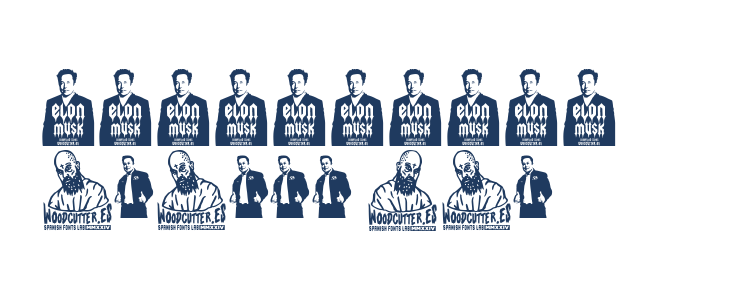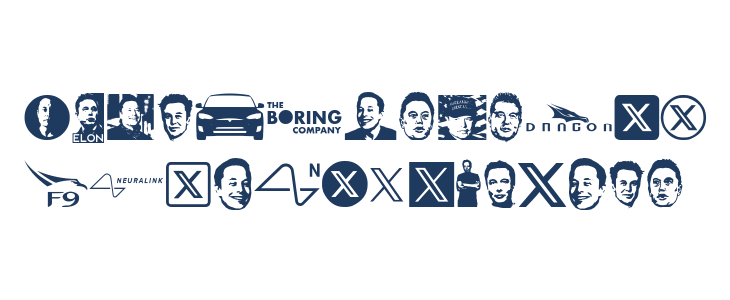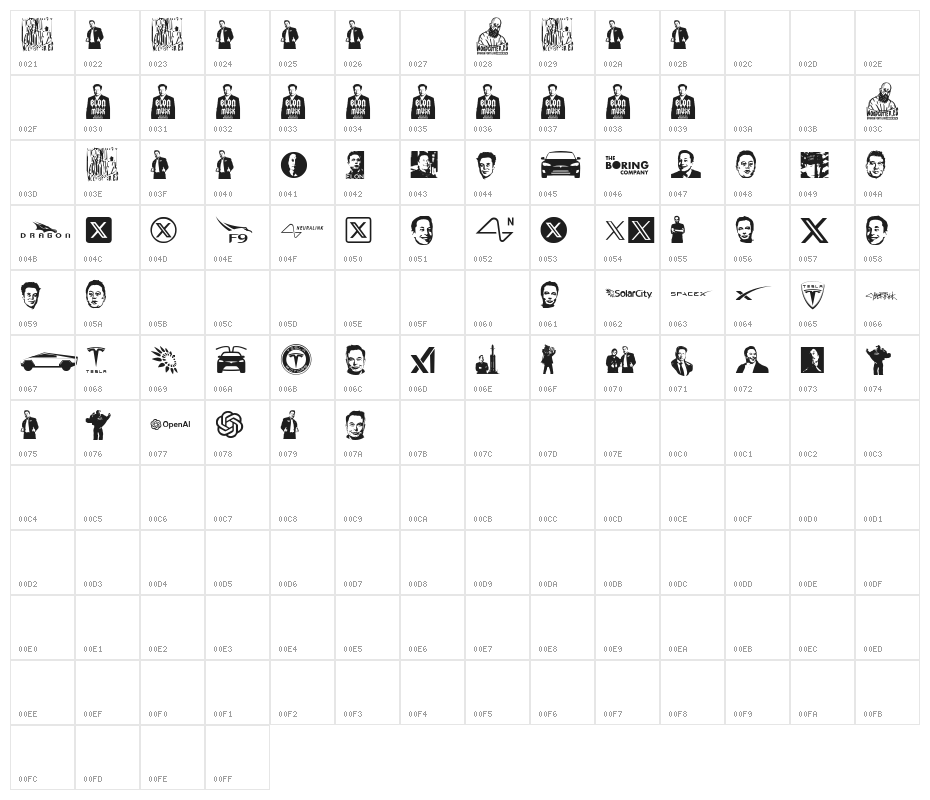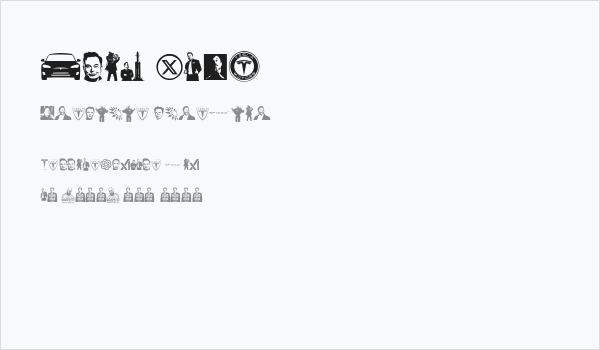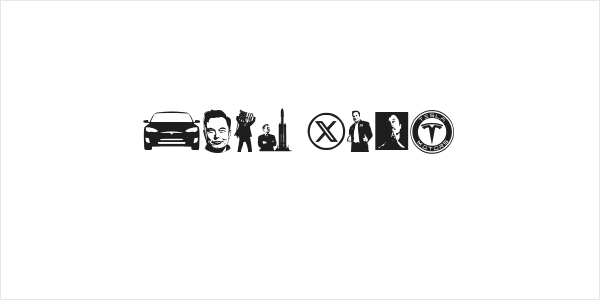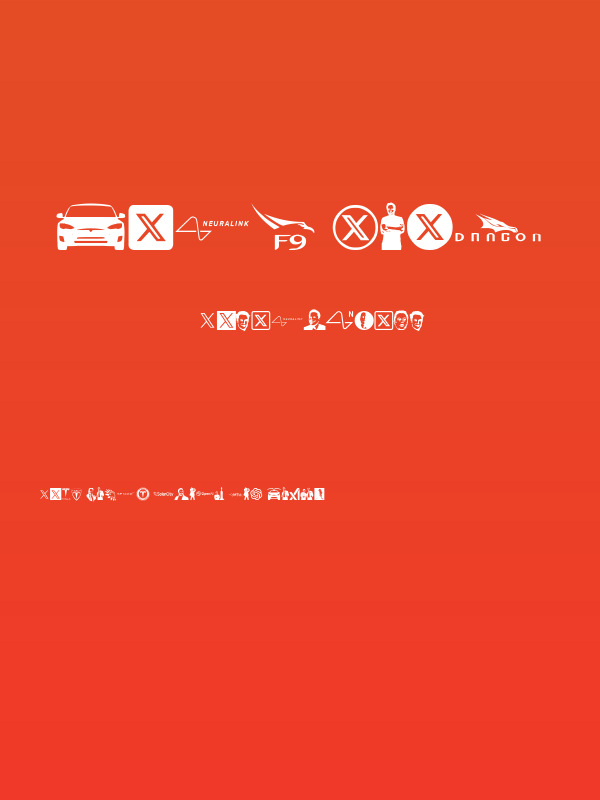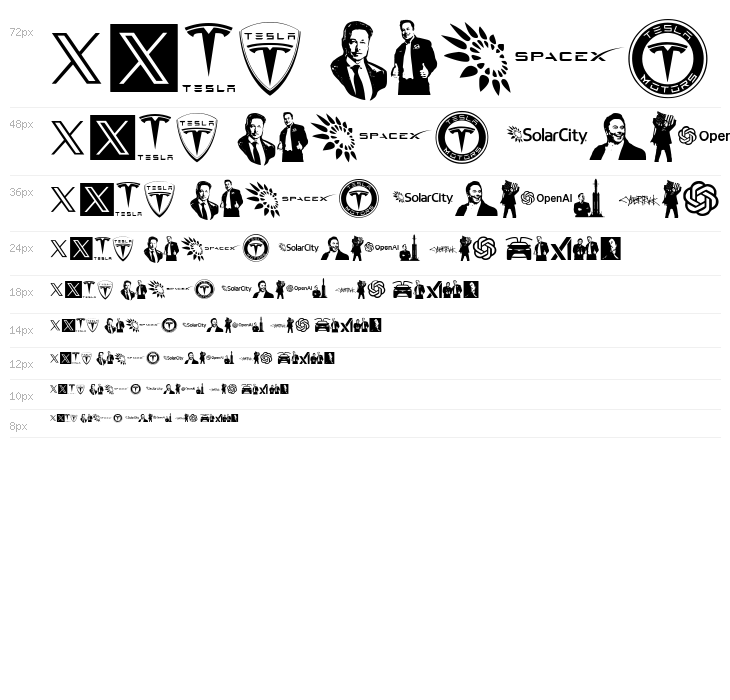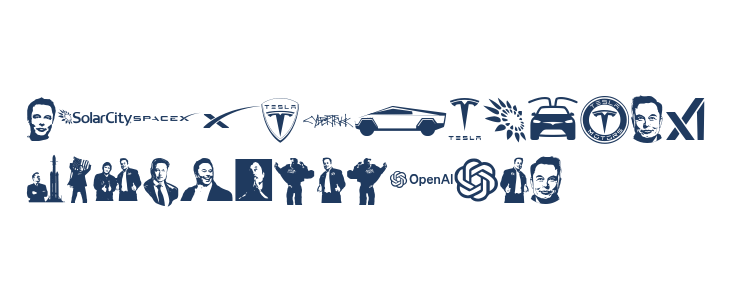
Elon Musk Font
Elon Musk Description
A decorative display typeface featuring a mix of illustrated portraits, logos, and stylized text elements referencing various technology and automotive themes. The glyphs are highly graphic, with some characters replaced by detailed illustrations or logos, resulting in a non-traditional, visually dense appearance.
| Overall Style | Decorative, Modern, Illustrative |
| Use Case | Logos, Posters, Headlines, Themed Graphics |
| Proposed Projects | Posters, themed event graphics, novelty merchandise, editorial illustrations, branding for tech-related events. |